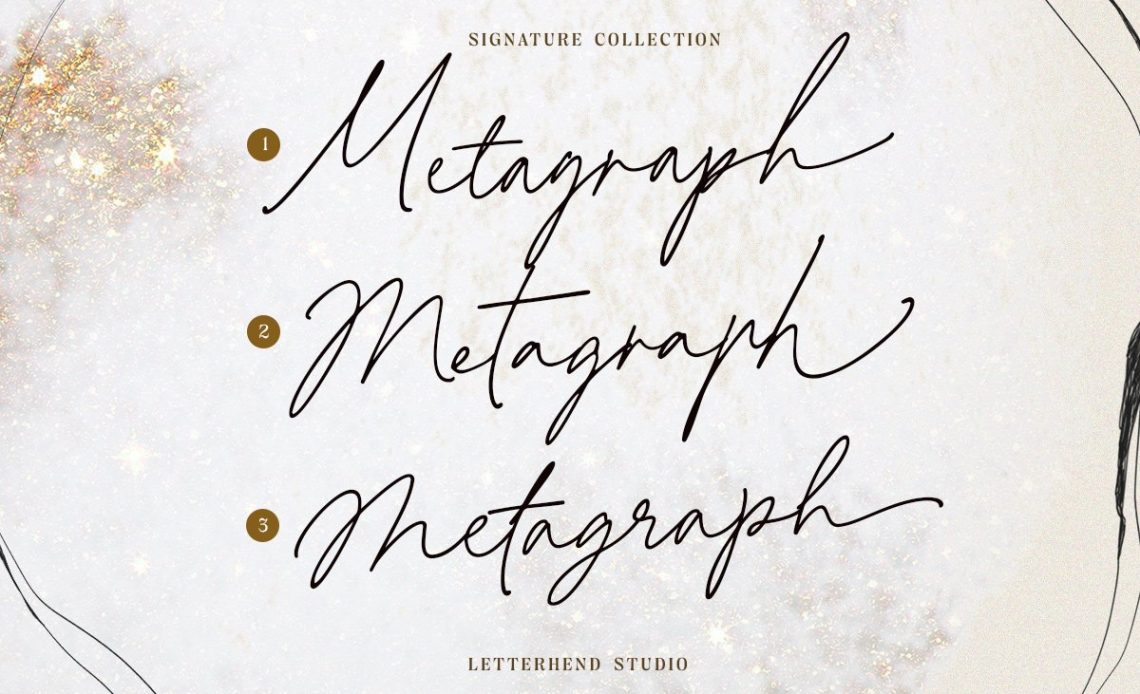
Welcome to the world of Metagraph Signature Script - a stunning collection of script fonts that are perfect for weddings and other formal events. Created by the talented Hendry Juanda, these fonts are based on manual handwriting, and are sure to make your designs stand out. With three different styles to choose from, you can find the perfect font for your project.
One of the best things about Metagraph is its versatility. Whether you're creating a logo, designing an invitation, or putting together a magazine, this font will elevate your work to the next level. You can even use it for packaging, fashion, makeup, and stationery. Its multilingual support means that you can use it for any type of advertising purpose, no matter what language you're working in.
In addition to its beautiful design, Metagraph Signature Script is packed with features that make it even more impressive. It includes both uppercase and lowercase letters, as well as numbers and punctuation. It's also PUA encoded, which means that you can easily access alternates and ligatures.
In short, Metagraph Signature Script is the perfect font for anyone looking to elevate their designs and make them truly stand out. Its elegant design, versatile applications, and extensive features make it a must-have for any designer. Download it today and start creating beautiful designs that will leave a lasting impression.